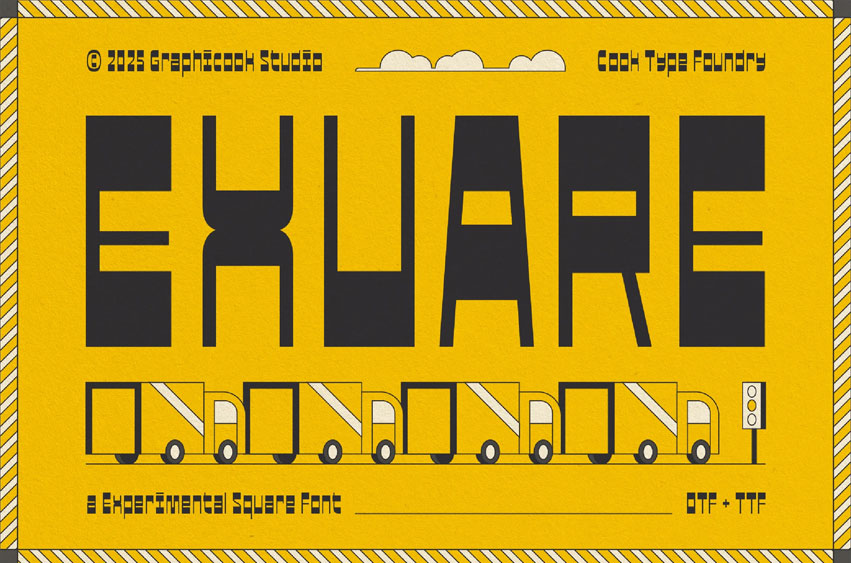
Exuare Font
Exuare Font is an experimental font with a rigid, structured form and sharp corners. It’s perfect for headlines, offering unique readability with bold design elements
Exuare is perfect for headlines, logotypes, magazines, packaging, quotes, movies, games, cover albums, book covers, and flyers, it’s a perfect solution for creating eye-catching designs that stand out in any context.